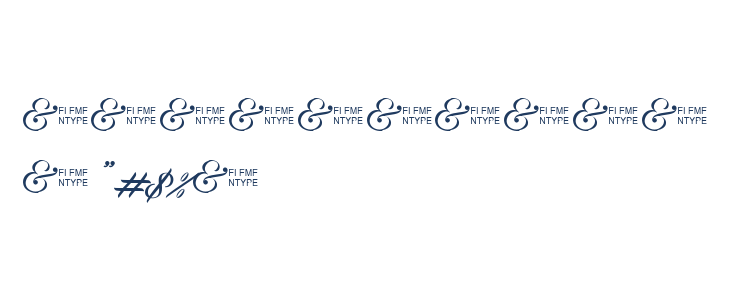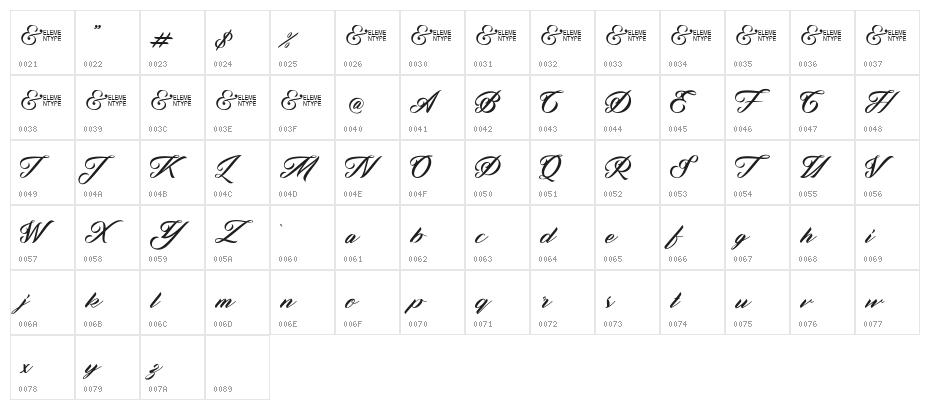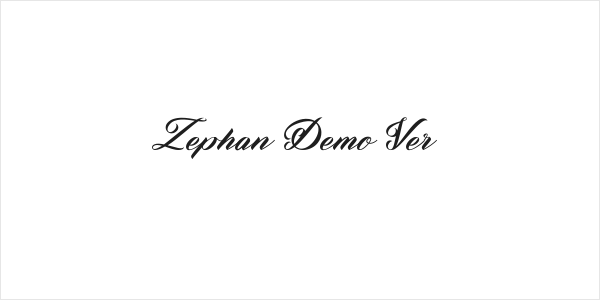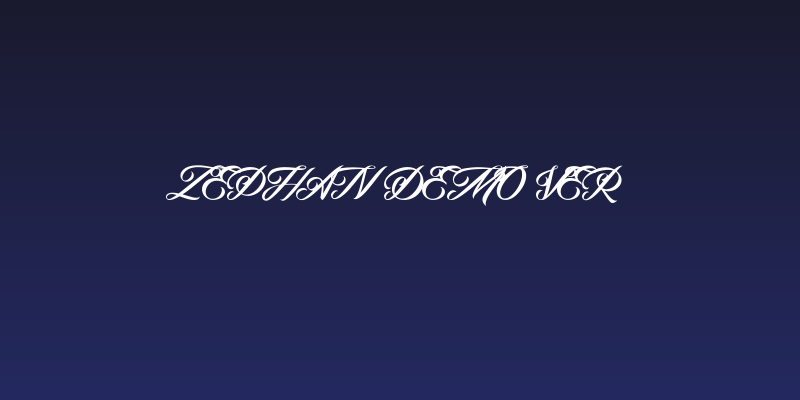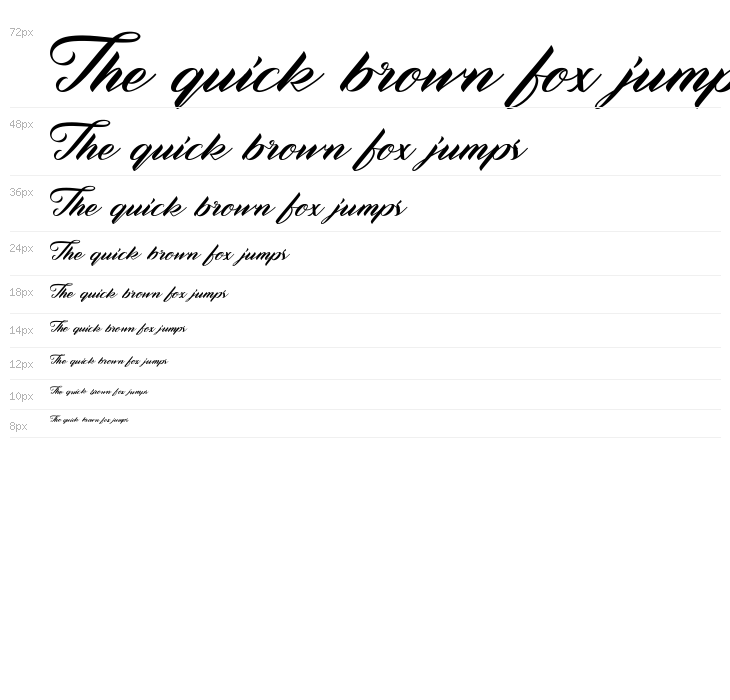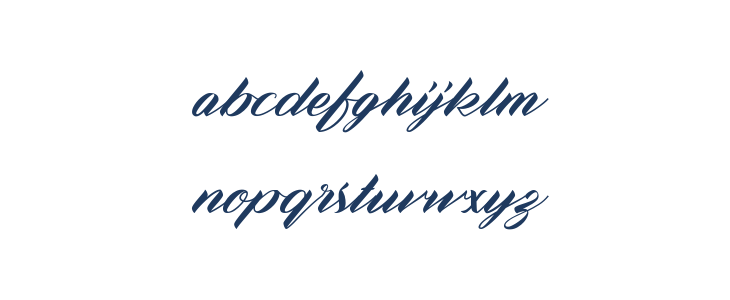
Zephan Demo Ver. Font
Zephan Demo Ver. Description
This elegant script font features flowing, cursive letterforms with a sophisticated and decorative style. The uppercase letters exhibit intricate loops and flourishes, lending a sense of grace and formality. The lowercase letters maintain a consistent slant, enhancing the fluidity and continuity of the text. The font includes a variety of special characters, such as ampersands and percentage signs, which are designed with the same ornate flair. The overall appearance is both classic and modern, making it suitable for a range of upscale applications. The font's high contrast between thick and thin strokes adds to its visual appeal, making it stand out in any design.
| Overall Style | Elegant, Decorative |
| Use Case | Logos, Invitations, Headlines |
| Proposed Projects | Ideal for wedding invitations, luxury branding, elegant stationery, and formal event programs. |